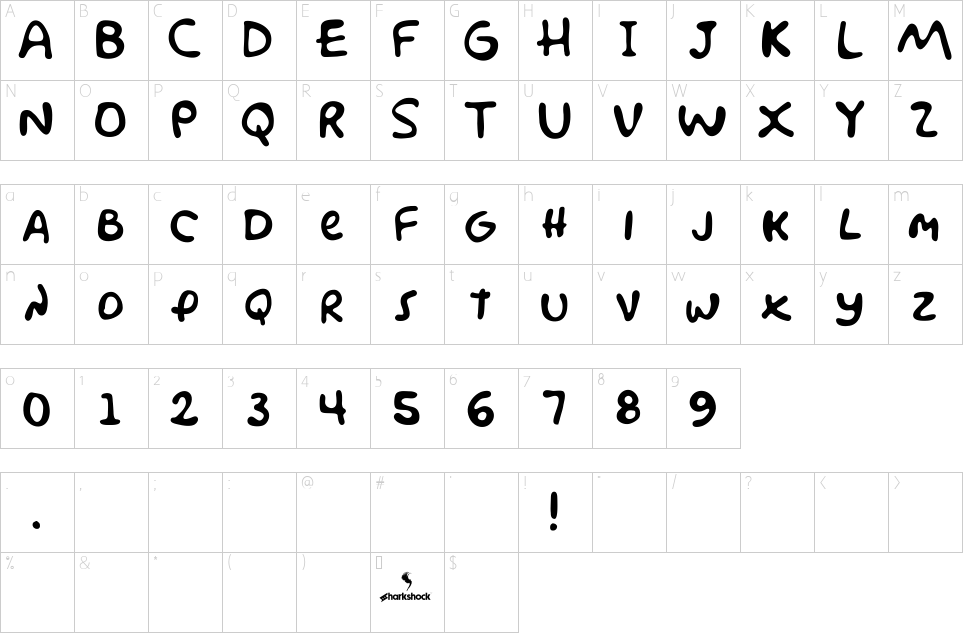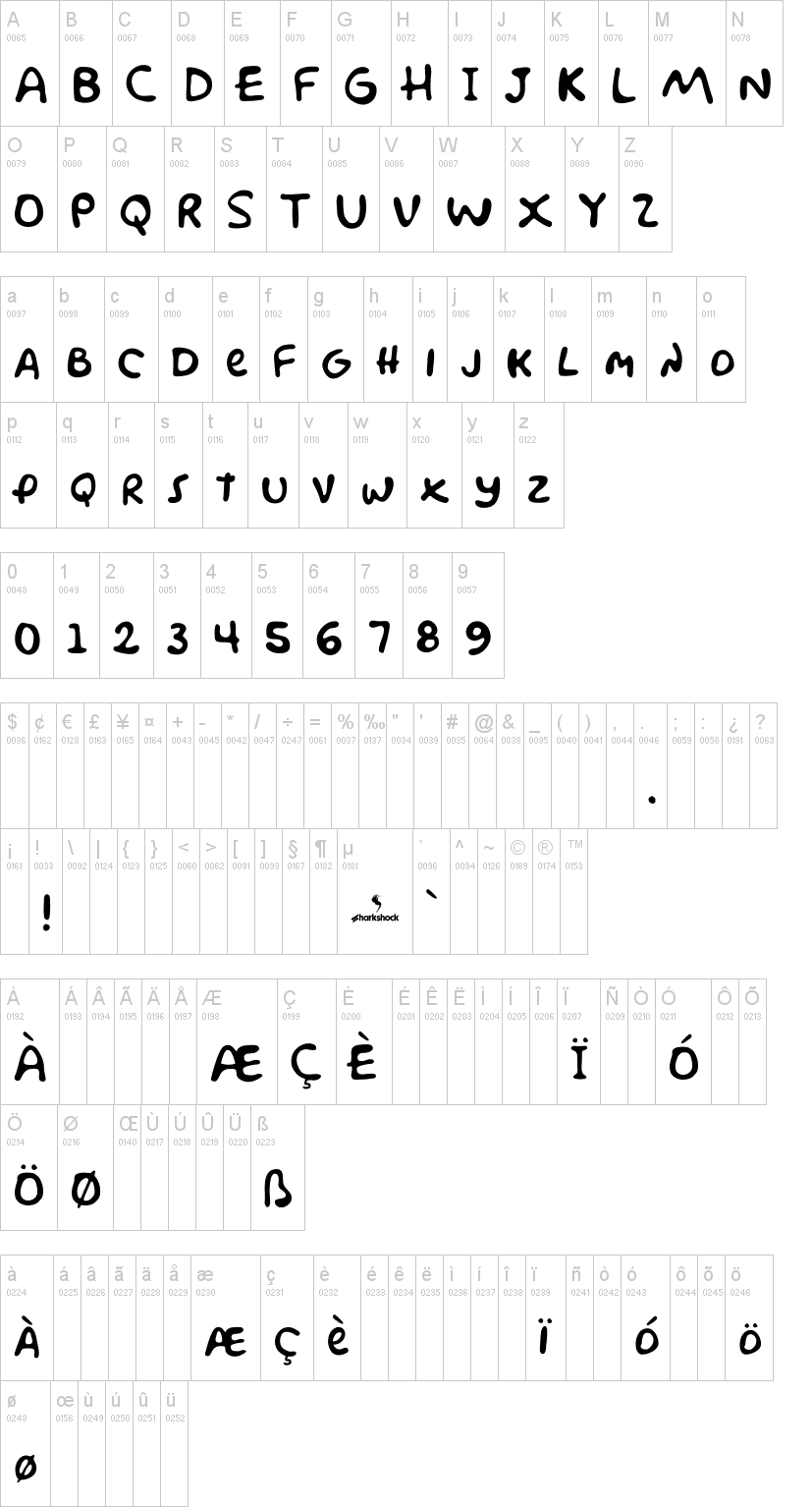
Simpsonfont
Cowabunga font lovers! After 10+ years this old classic gets a serious facelift. Changes were made to smoothen out the curves and make them appear more "ink" like. This update features
completely redrawn glyphs, kerning, basic/extended latin, European accents, and Cyrillic characters. Use Simpsonfont in a poster, game, or kid's book. The demo version features
basic latin, numbers, limited punctuation, and limited kerning.